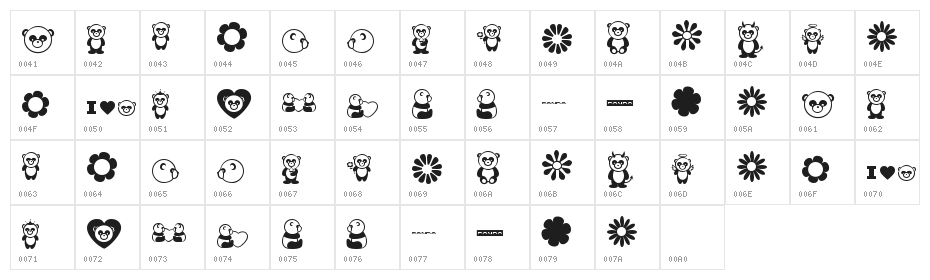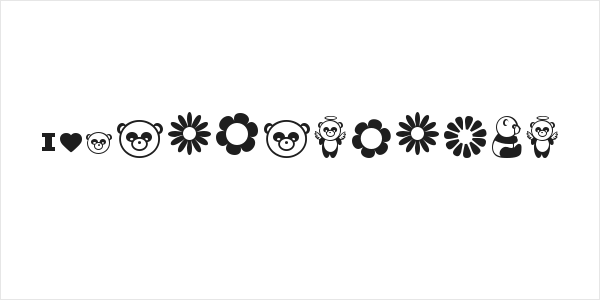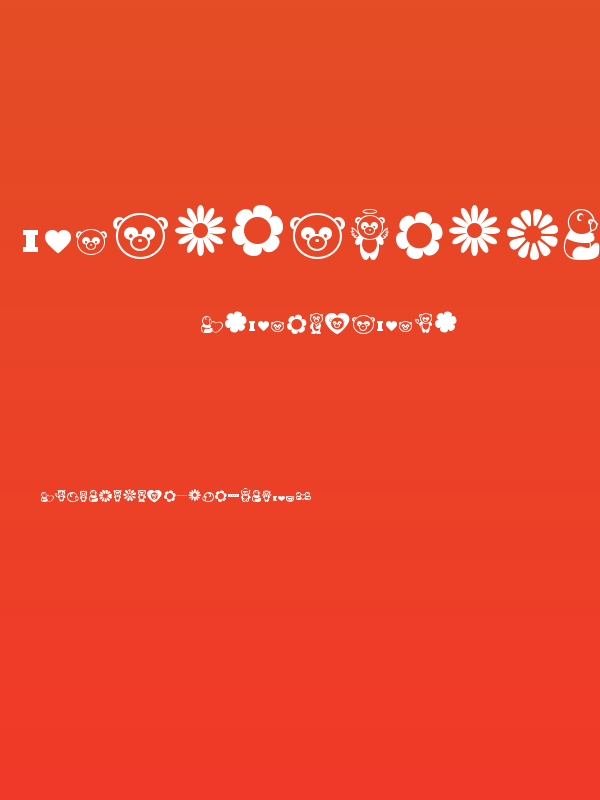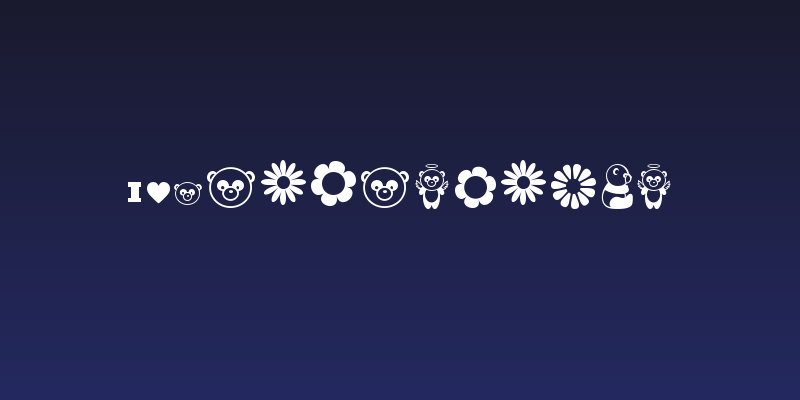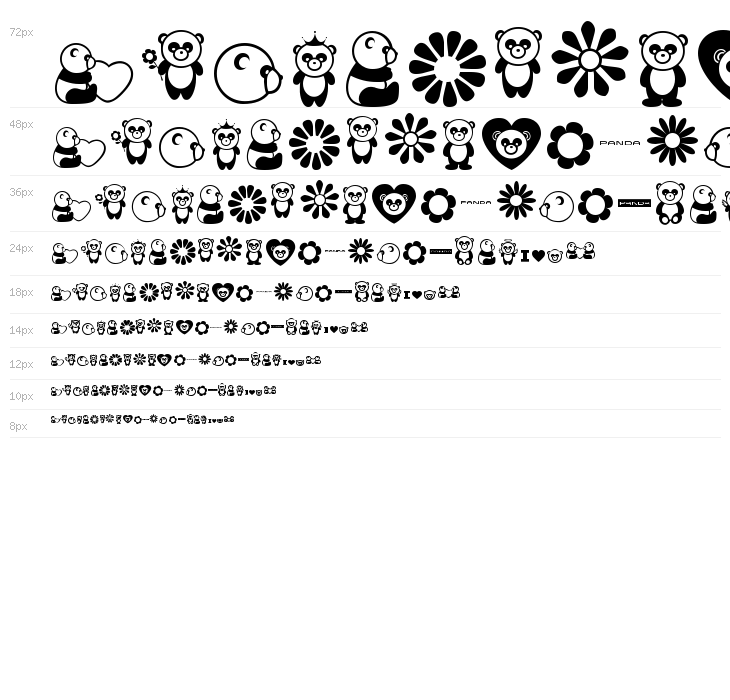
Pandamonium Font
| Caso d'uso | Logos, Posters, Invitations |
| Progetti proposti | Ideal for children's books, playful branding, party invitations, and themed merchandise. |